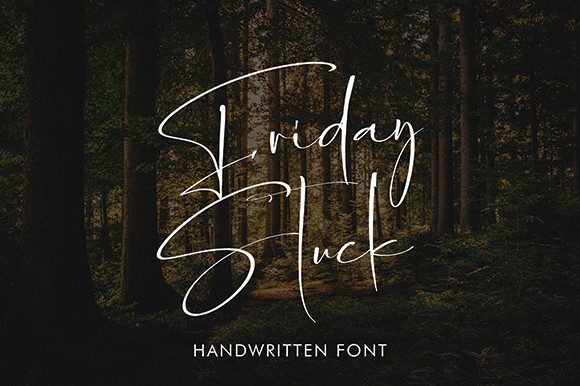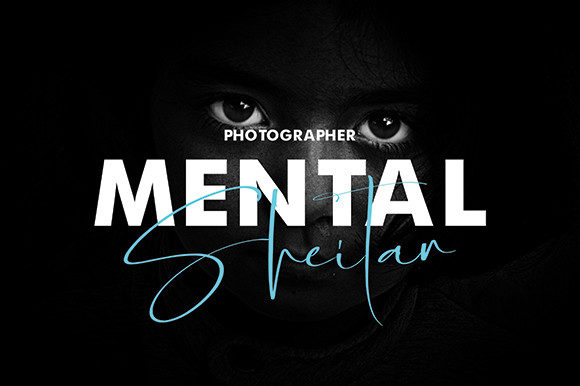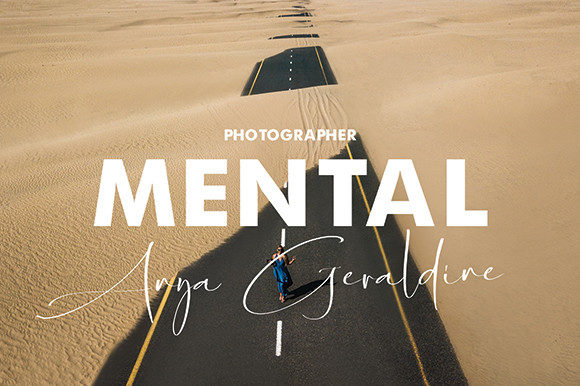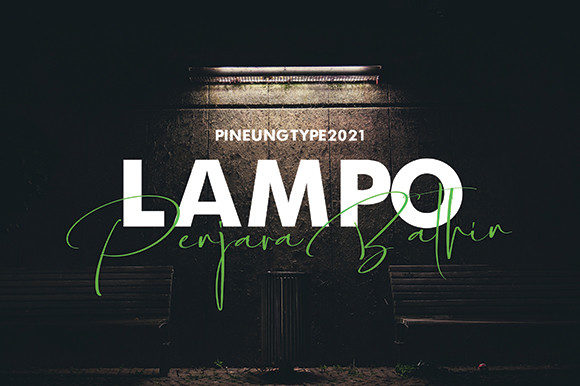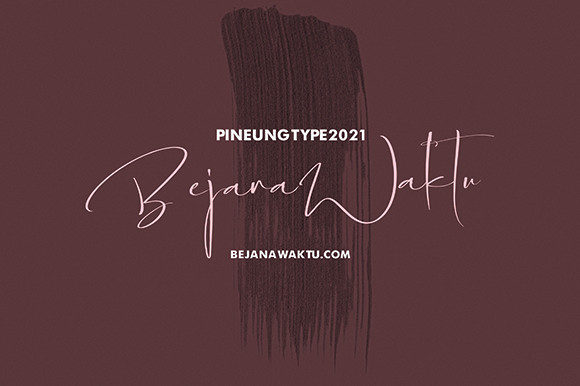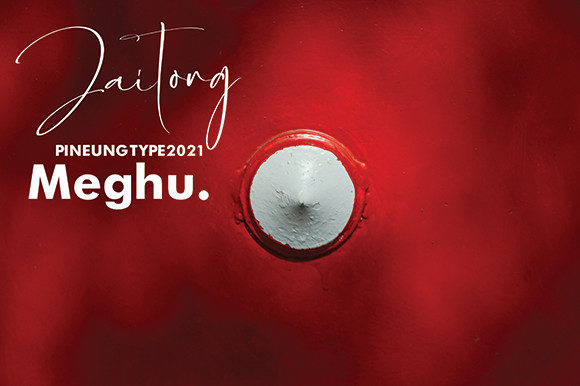
Friday Stuck Font – Free Download
Introduction to Friday Stuck Font
Friday Stuck is a stylish and delicate script font.
It has a clean, thin and smooth vibe and it will be a hit for any design that you want to add it to .
Key Features of Friday Stuck Font
Why Choose Friday Stuck Font?
Friday Stuck Font offers exceptional quality and versatility, making it a valuable addition to your design toolkit. Whether you’re creating for personal projects or commercial use, Friday Stuck Font delivers professional results.